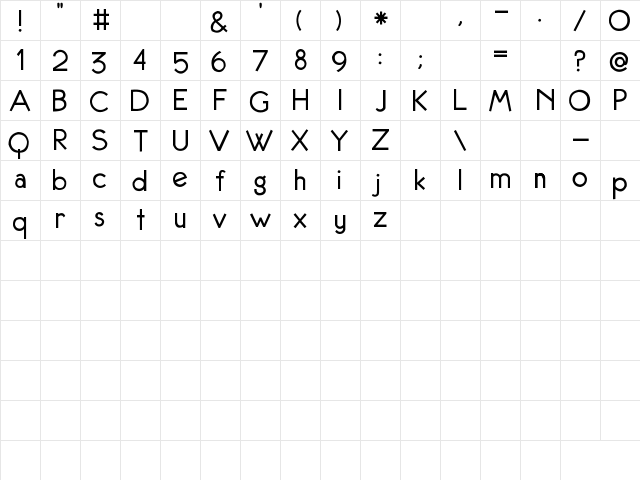
2Peas Tubby 2Peas Tubby
| Foundry | High-Logic |
| Designer | High-Logic - Erwin Denissen 1999 |
Design Context for 2Peas Tubby Typeface
2Peas Tubby is a composed and adaptable typeface that performs quietly and consistently across a wide range of design contexts.